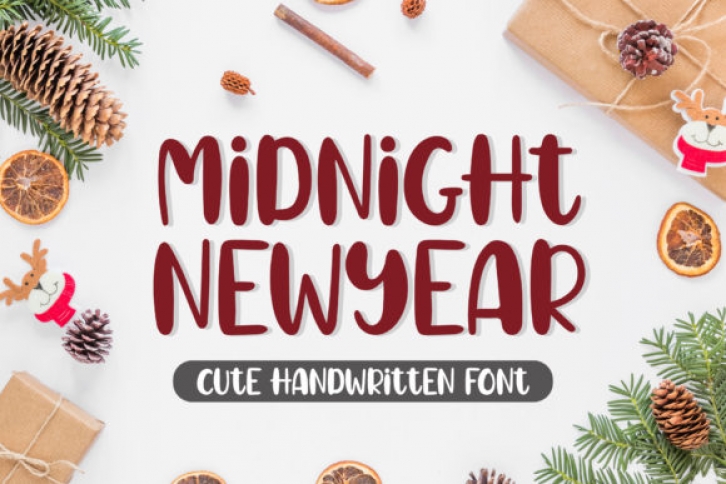
Midnight New Year is a friendly handwritten font. It is playful and a little bit quirky, an is the perfect fit for your social media posts, posters, cards and cute greeting cards.